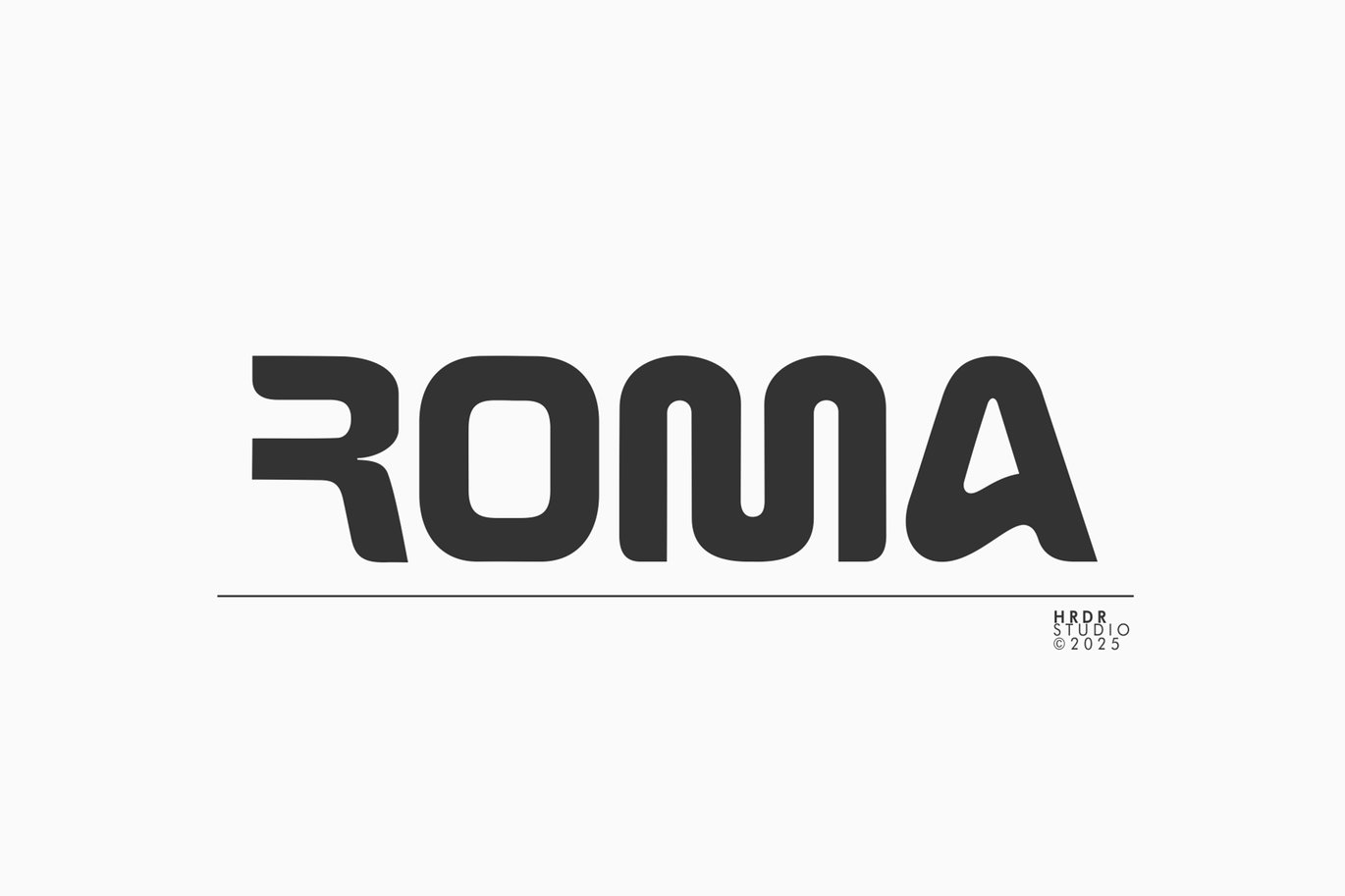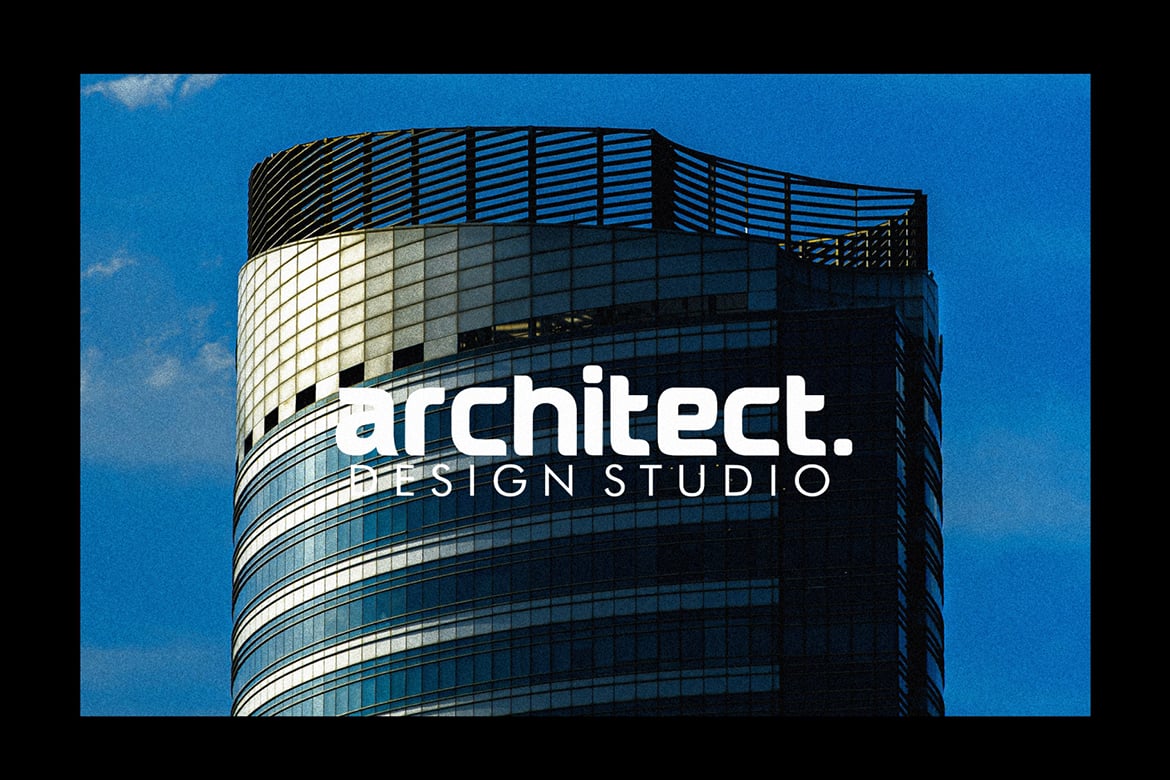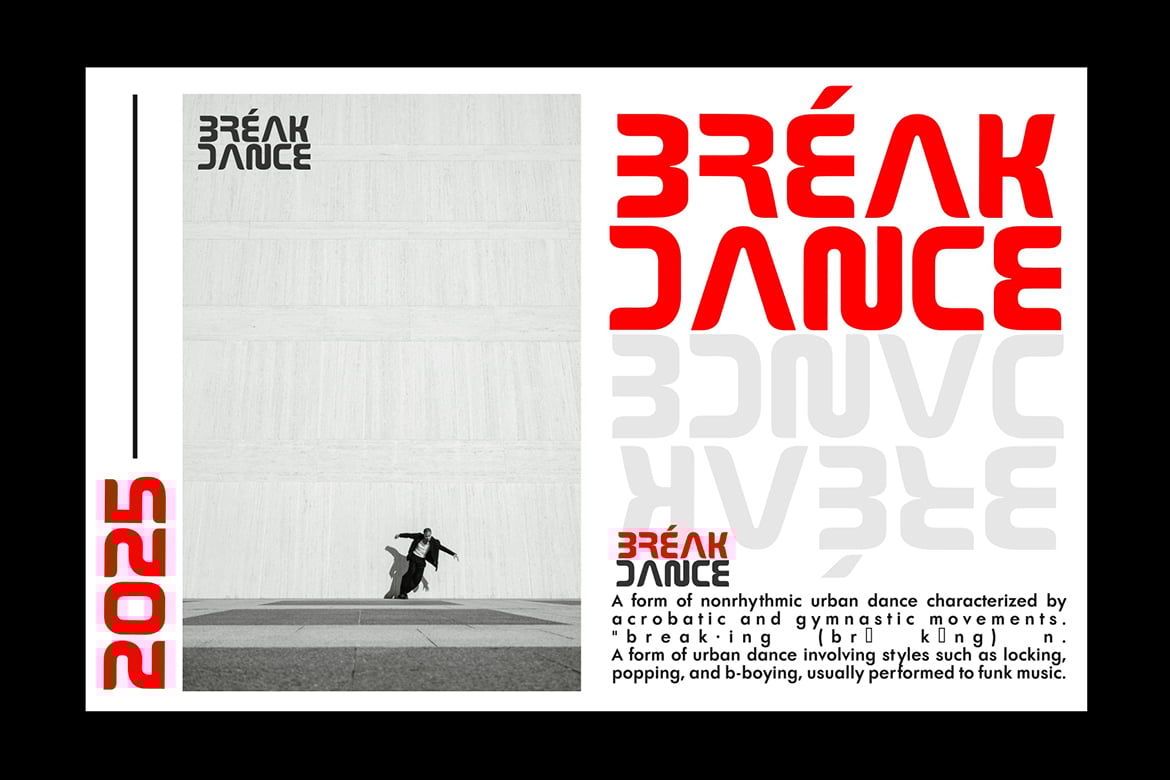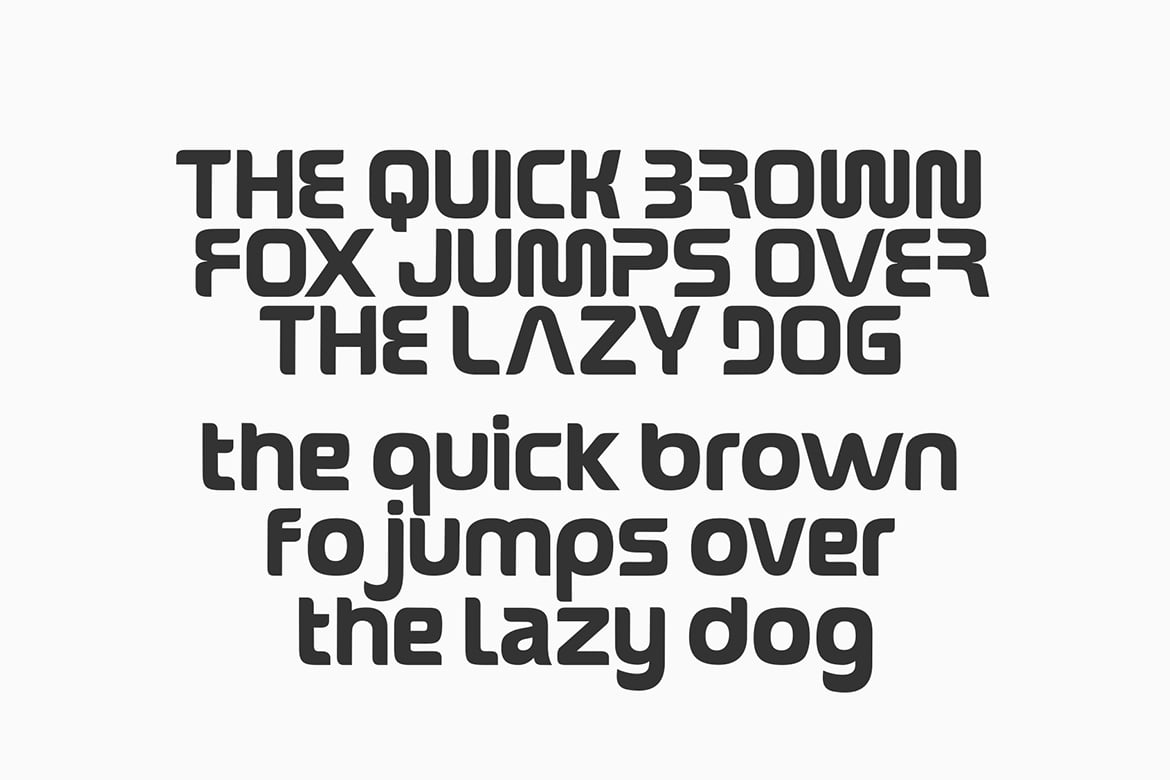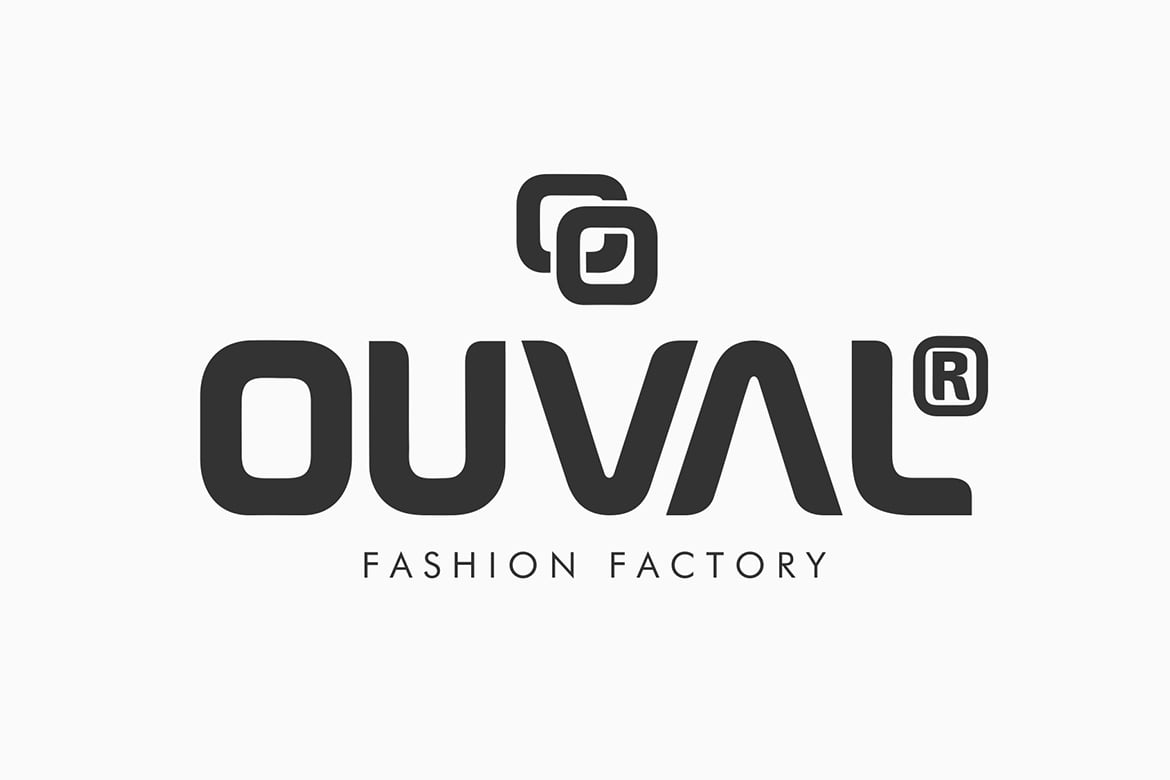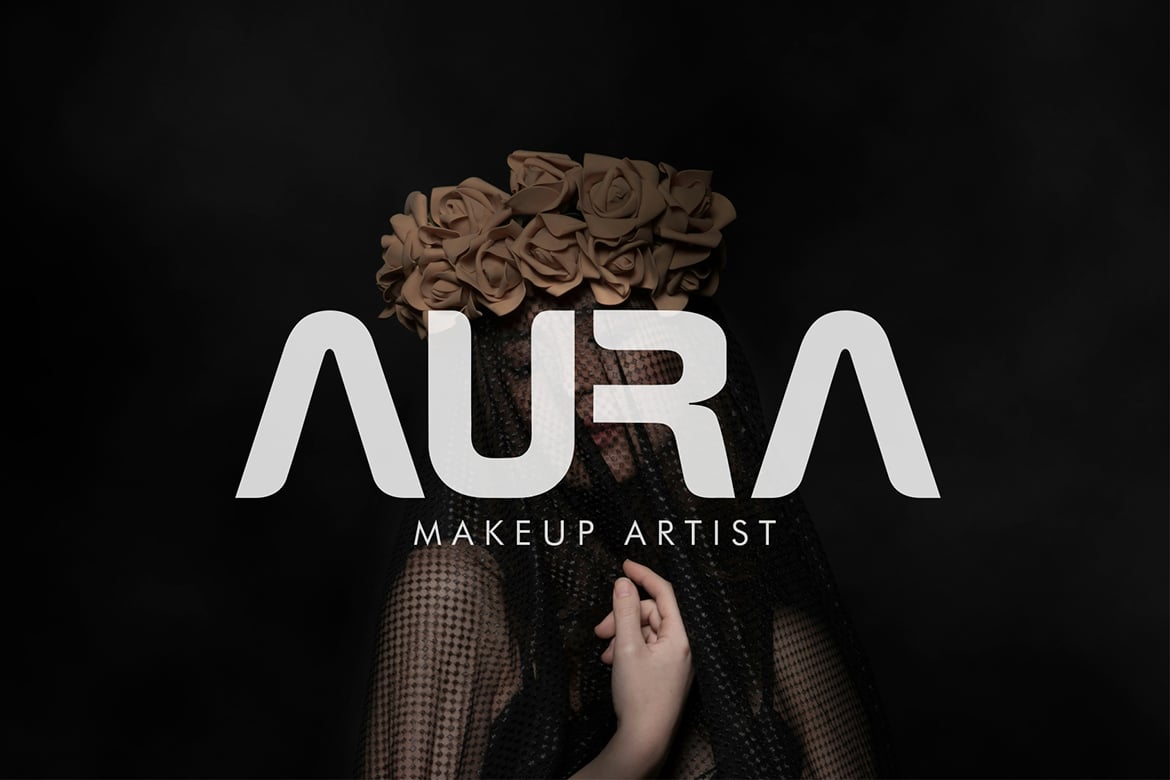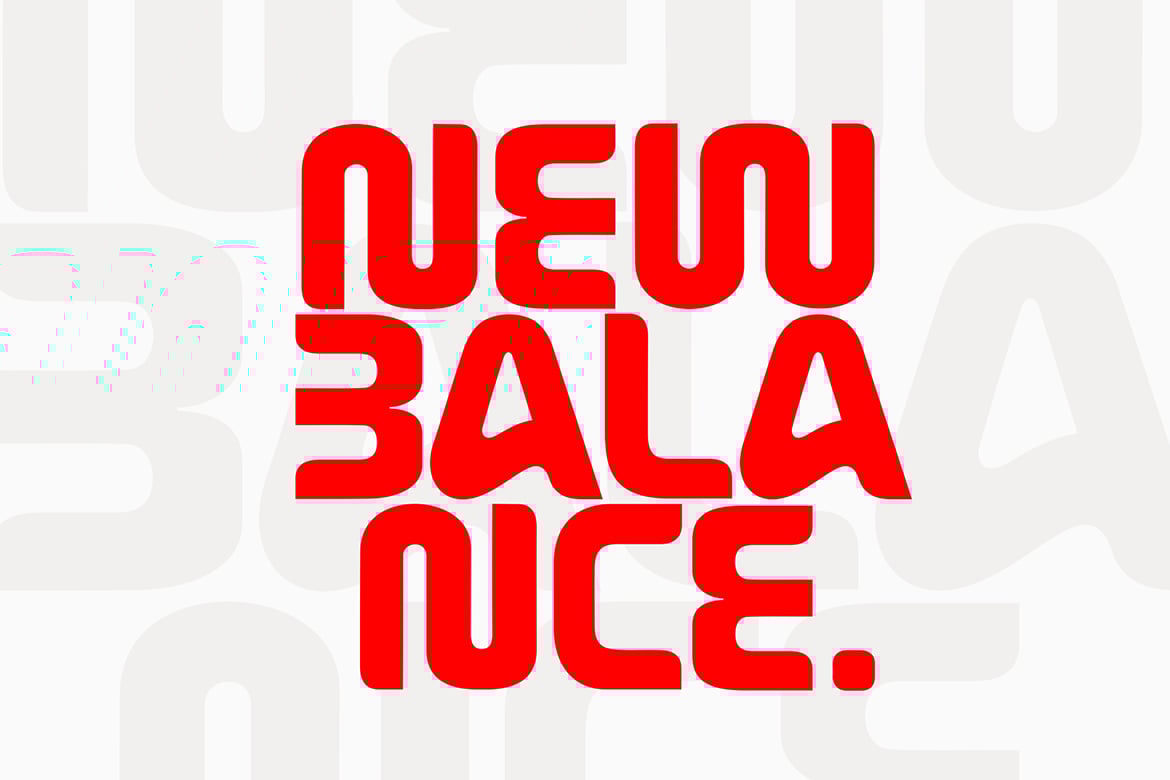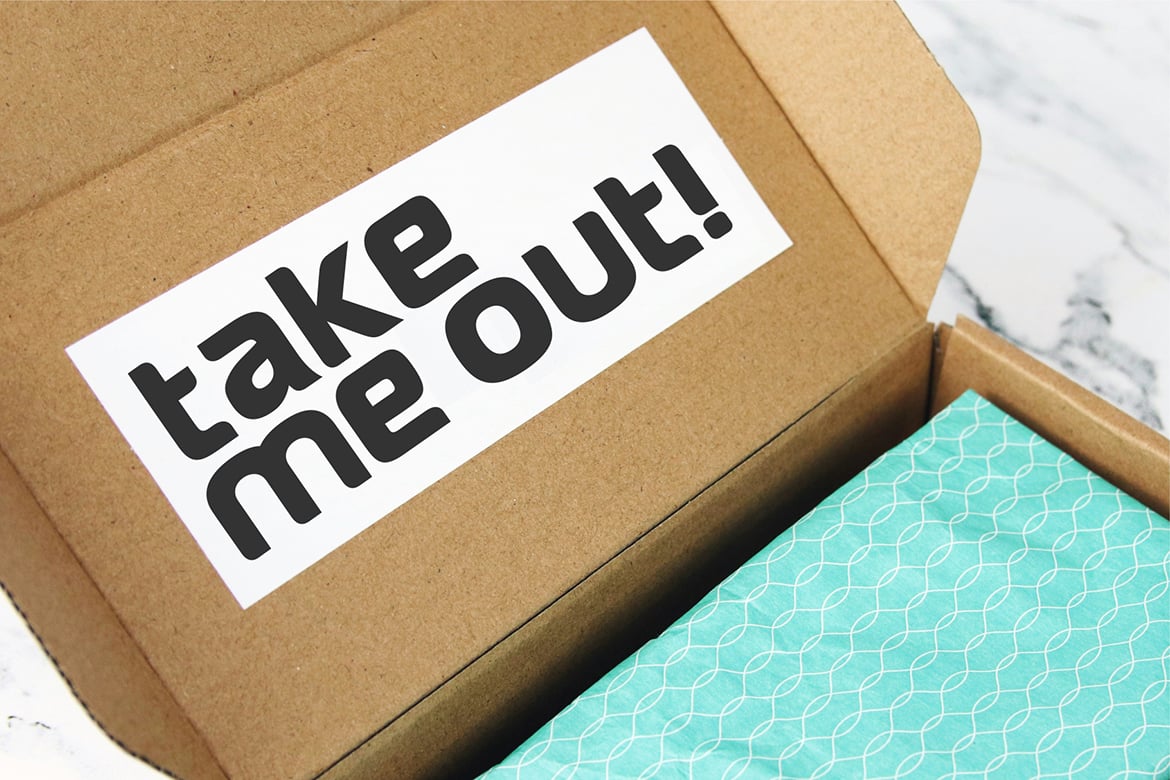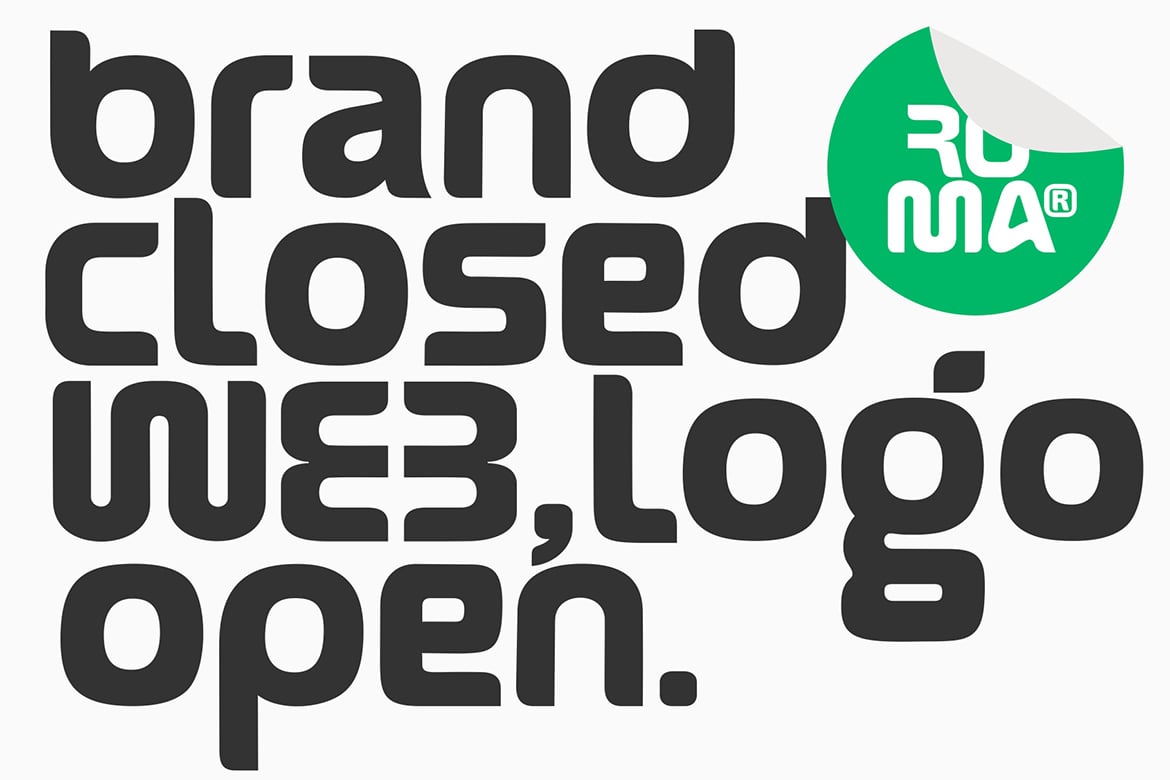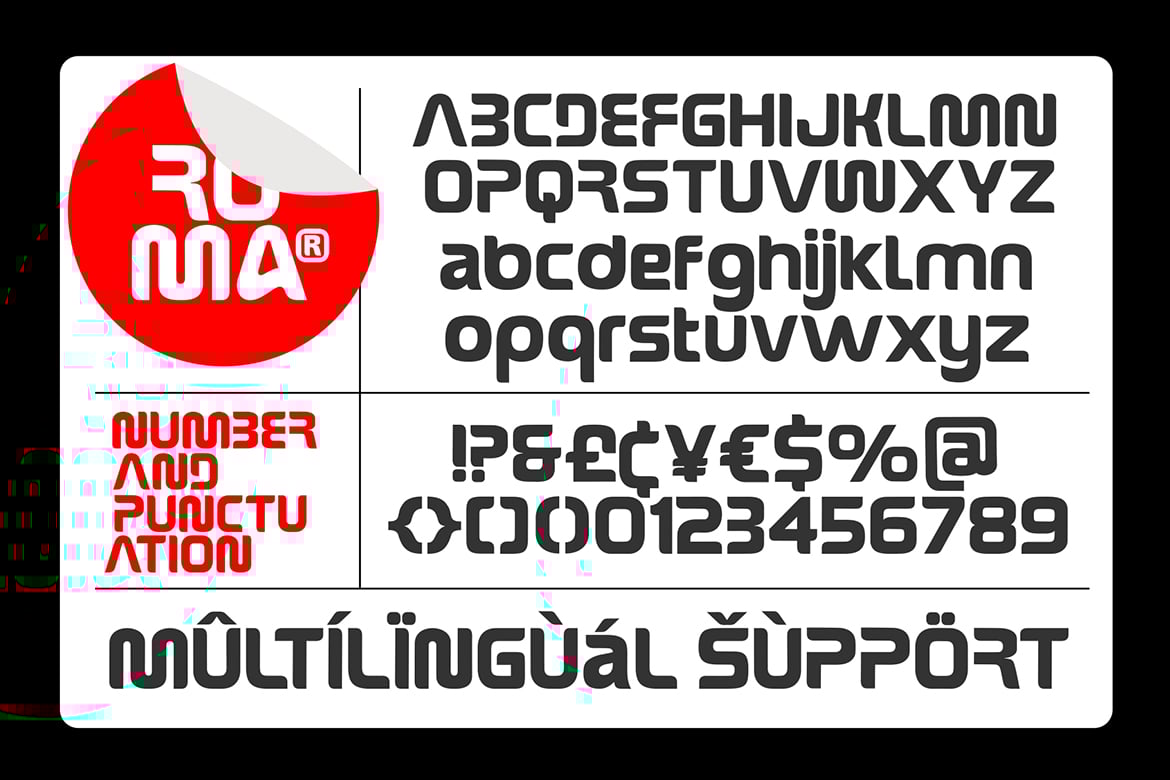
Roma – Logo Font
Say hello to Roma !
Roma is a sans serif font meant for Logo & branding, The incharacters were build in chunky personality, It’s great for headlines and titles but is also very legible in sentence case.
Font Features :
- numeric & Multilingual support
- Stylistic Alternates with Ss01 & Ss02